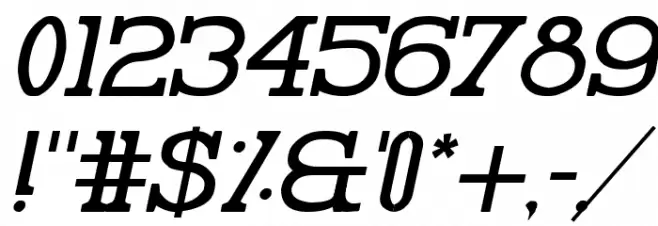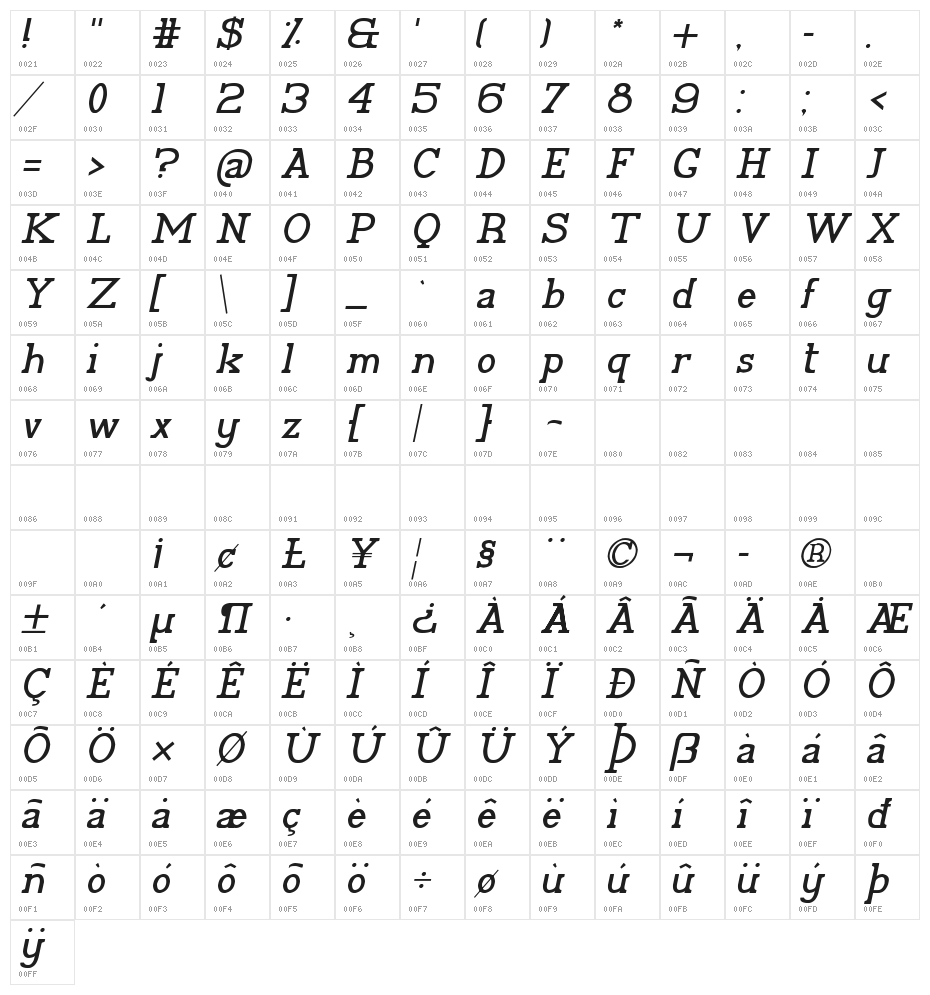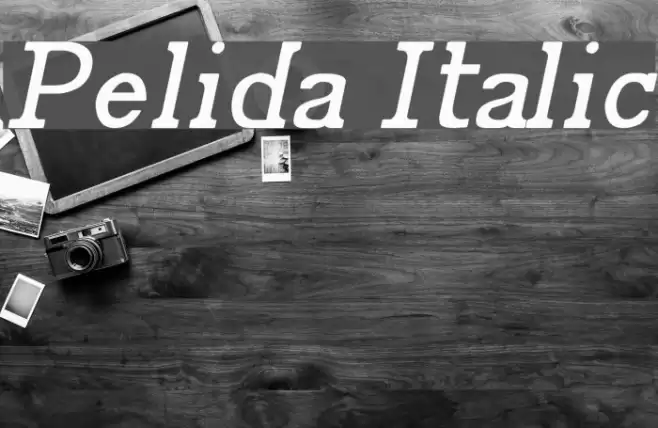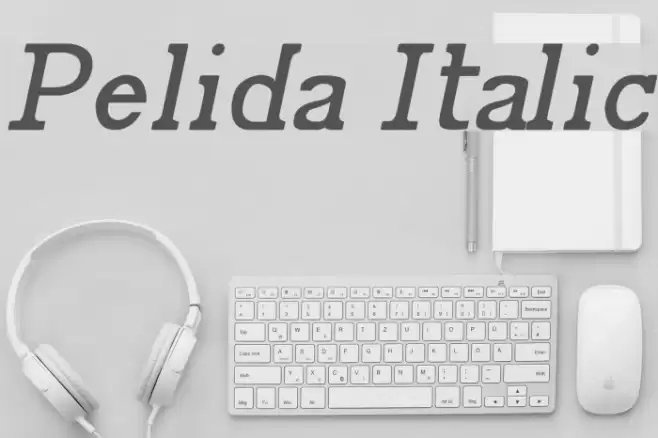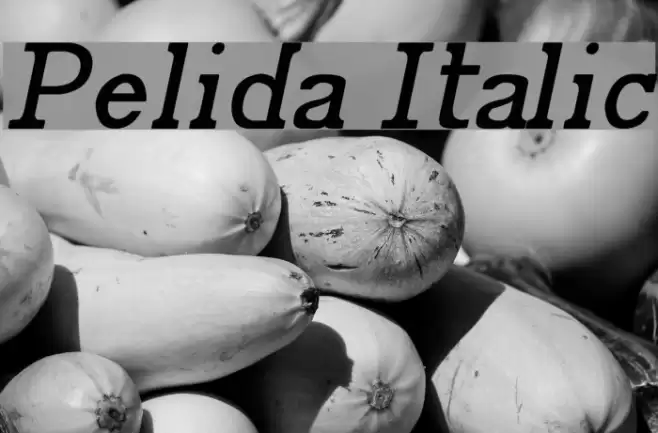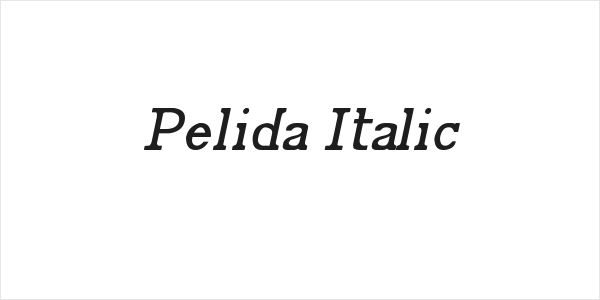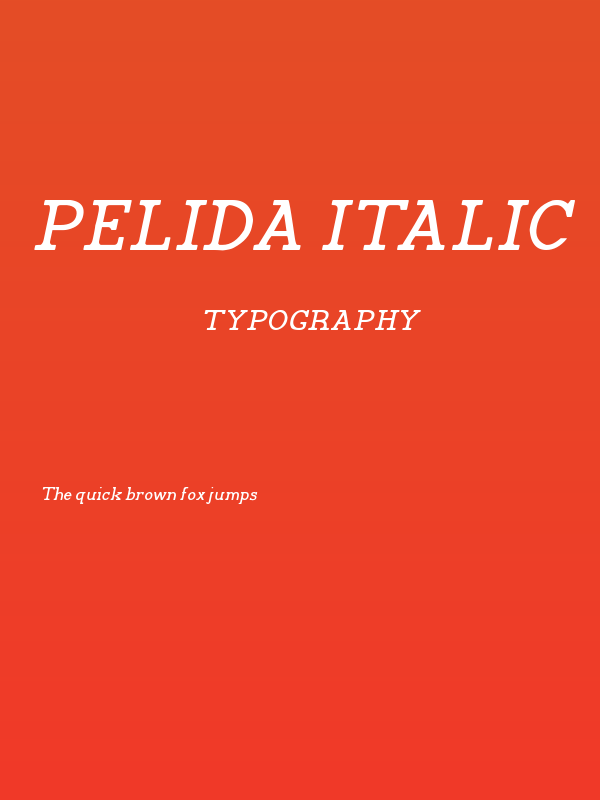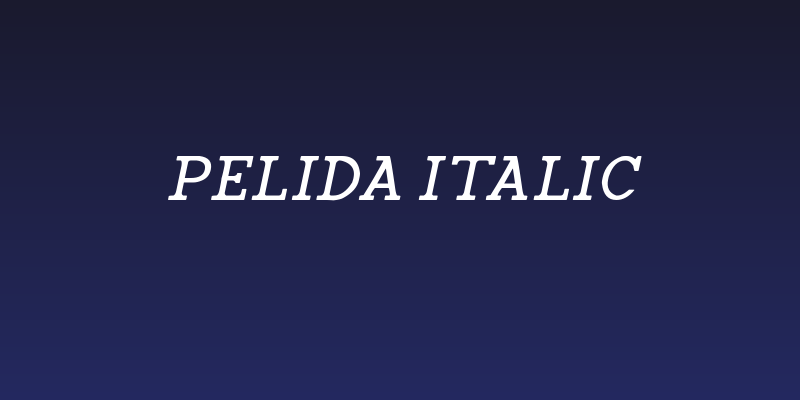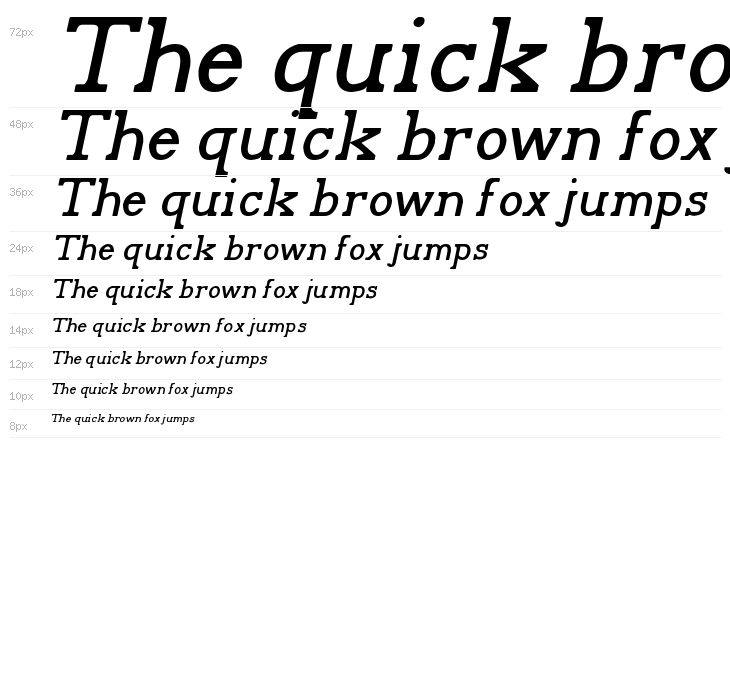
Pelida Italic Font
Pelida Italic Description
This font features an elegant italic style with a classic serif design. The characters are slightly slanted, giving a sense of motion and sophistication. The serifs are pronounced, adding a traditional touch, while the overall form maintains a modern appeal. The uppercase letters are bold and commanding, while the lowercase letters are more delicate, providing a nice balance. The numerals are clear and distinct, making them easy to read. Special characters are well-integrated, maintaining the font's cohesive look.
| Use Case | Headlines, Editorial design, Branding |
| Proposed Projects | Ideal for use in formal invitations, elegant branding, editorial design, and sophisticated advertising. |